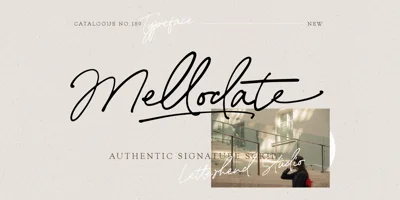
Mellodate Font
Mellodate Font is perfect for romantic branding, wedding invitations, elegant packaging design, luxury product labels, beauty brand logos, lifestyle magazines, boutique signage, and sophisticated social media graphics. This refined typeface excels in projects requiring grace, femininity, and upscale appeal where elegance and charm are paramount.
What makes Mellodate Font exciting is its harmonious blend of modern sophistication with subtle romantic touches, creating an irresistibly charming personality. The font features graceful letterforms with delicate curves and refined details that evoke feelings of warmth, intimacy, and elegance. Its versatile character makes it perfect for brands seeking to convey luxury, romance, and contemporary femininity.
Mellodate Font family includes multiple weights and stylistic variations that provide comprehensive design flexibility. The family typically offers light, regular, medium, and bold weights, along with italic versions and decorative alternates that allow designers to create beautiful typographic compositions with varied visual hierarchy.
Whether you're developing beauty brand identity, designing wedding stationery, or creating luxury lifestyle content, Mellodate Font delivers exceptional elegance across all applications. This font's sophisticated appeal and romantic undertones make it perfect for brands targeting discerning audiences who appreciate refined aesthetics.
The balanced proportions and careful attention to detail in Mellodate Font ensure outstanding legibility while maintaining its distinctive charm at any size. Its contemporary elegance and timeless appeal create a memorable impression that resonates with modern consumers. Download Mellodate Font today and infuse your creative projects with sophisticated romance and contemporary elegance.